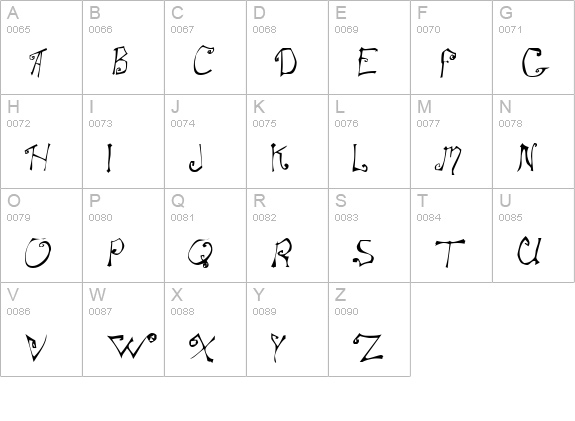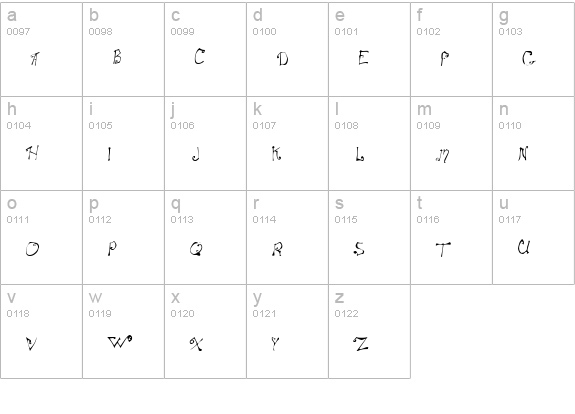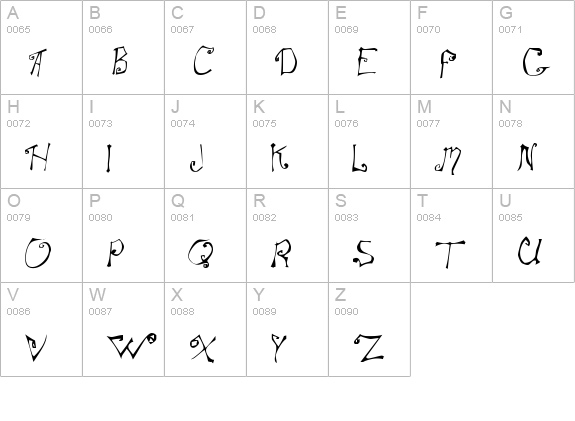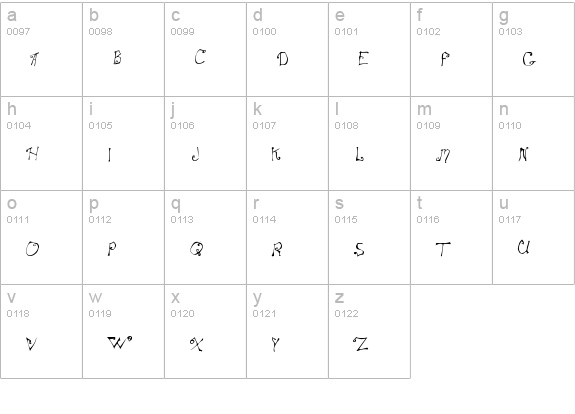
SpitCurl Font Details
Introducing SpitCurl, a mesmerizing and versatile font that effortlessly captures the essence of elegance and sophistication. With its subtle curves and delicate strokes, SpitCurl is a true testament to the art of typography. This font exudes a sense of timeless beauty, making it the perfect choice for any design project that requires a touch of class. But what truly sets SpitCurl apart is its unique ability to blend seamlessly into any creative endeavor. Whether you're designing a logo, crafting a wedding invitation, or creating a stylish poster, SpitCurl adapts effortlessly, elevating your work to new heights. And the best part? SpitCurl is completely free! Yes, you read that right. This incredible font is freely available to download at FontsMarket.com. No need to worry about breaking the bank or compromising on quality - SpitCurl gives you all the elegance and style you desire, without costing you a penny. So why wait? Unlock the limitless possibilities of SpitCurl and bring your designs to life with this exquisite font. Download it today from FontsMarket.com and experience the beauty of SpitCurl for yourself. Get ready to make a lasting impression with every word and every stroke, as SpitCurl takes your design to a whole new level of sophistication.